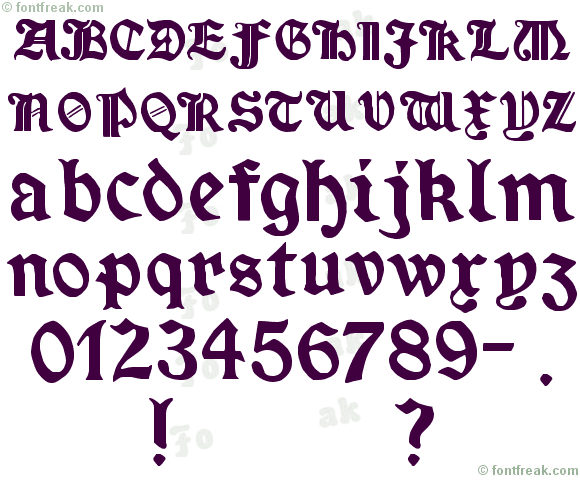
Minim ExtraBold
Minim Outline ExtraBold
Minim, designed by Paul Lloyd in 2002, is a striking display font that falls into the category of decorative typefaces. This font is characterized by its bold outline and extrabold weight, giving it a commanding presence that captures attention. The stroke weight is uniform, providing a sense of stability, while the minimal contrast between thick and thin strokes enhances its readability. The spacious letterforms allow for comfortable spacing, making it suitable for various applications.
Minim is ideal for creative projects that require a touch of personality and flair. It works exceptionally well in wedding invitations, where its bold style can convey elegance and sophistication. Movie posters benefit from the font’s eye-catching appearance, drawing viewers in with its distinctive character. Additionally, restaurant menus can use Minim to create a memorable brand identity, as its unique style aligns perfectly with diverse culinary themes. Content creators looking to make their online graphics pop will find this font to be an excellent choice for social media posts and headlines.
What sets Minim apart is its ability to blend boldness with elegance, making it versatile for various design needs. The font's unique character offers a fresh perspective on traditional display typography, allowing designers to express creativity while maintaining readability. With Minim font free download available, it’s never been easier to incorporate this distinctive typeface into your next project. Embrace the uniqueness of Minim and let your designs shine.